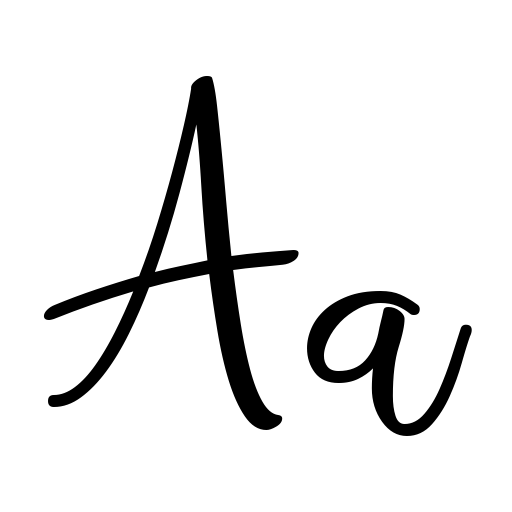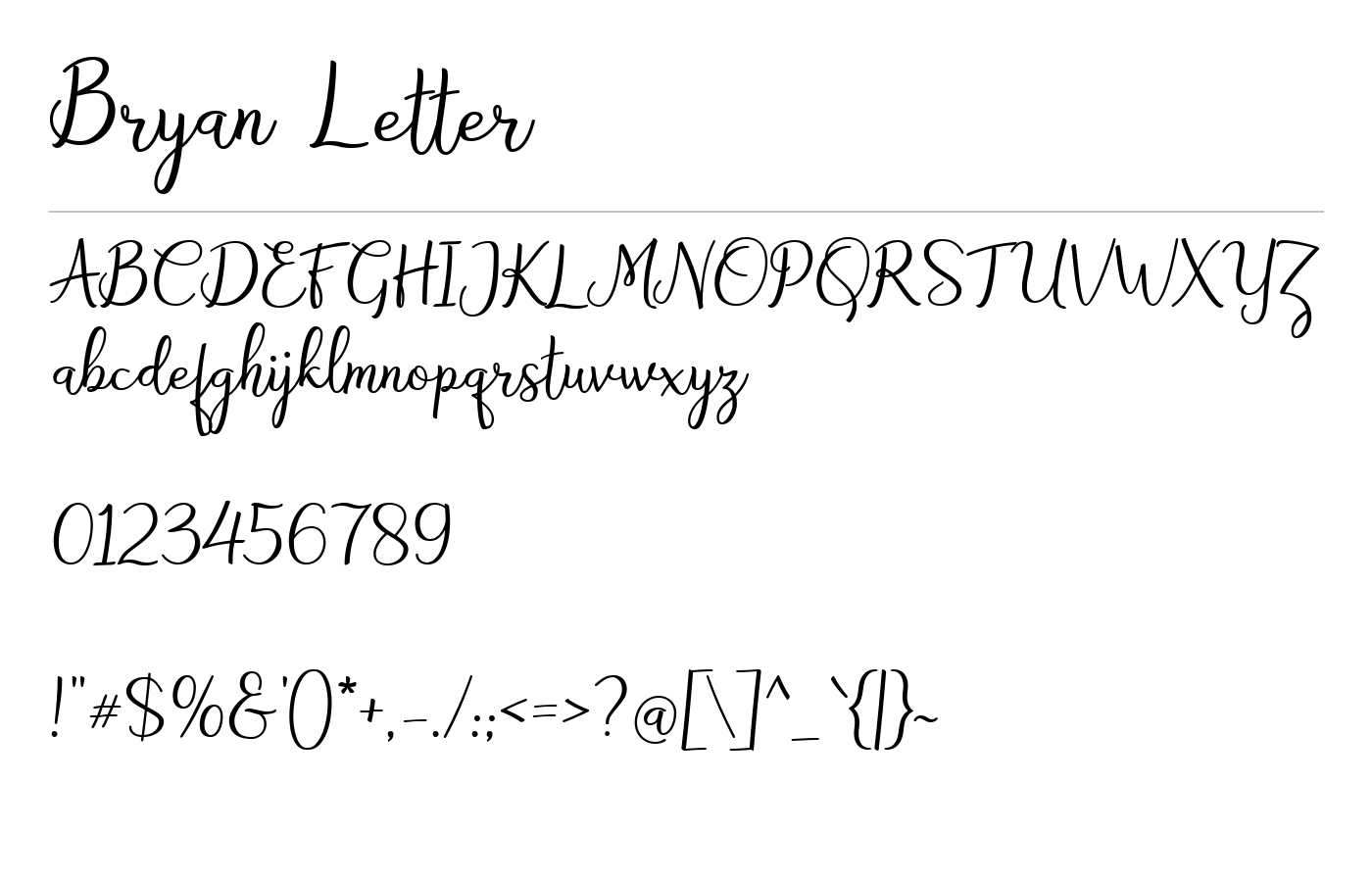
Bryan Letter is a delicate and elegant script font with thin, flowing strokes that give it a handwritten, personal feel. Its narrow width and consistent stroke weight make it ideal for invitations, branding, and projects that seek a refined yet approachable style. This font works best in contexts where a touch of sophistication and warmth is desired without overwhelming the design.
Bryan Letter Font
About Bryan Letter Font
| Font family | Bryan Letter Font |
| Designer | Pollux of Geminorum |